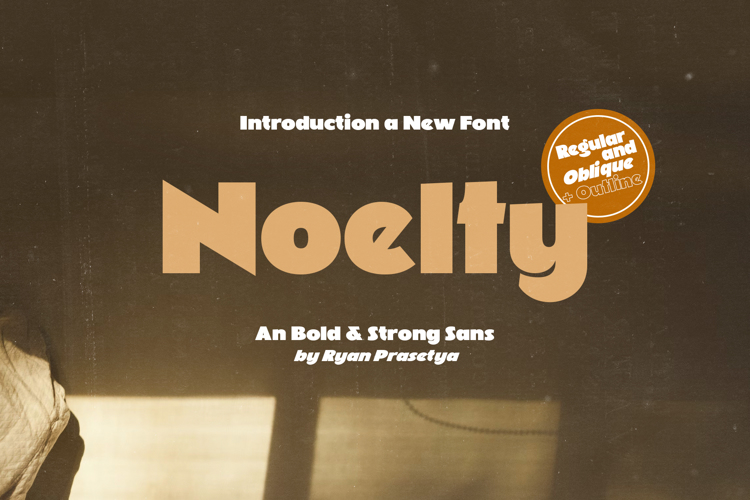
Noelty Font
About Noelty Font
Say hello to "NOELTY"a new bold sans with strong character very suitable for headline, title or anything need to be good for look ang design. Contained 4 styles that you can choose what you need for every project